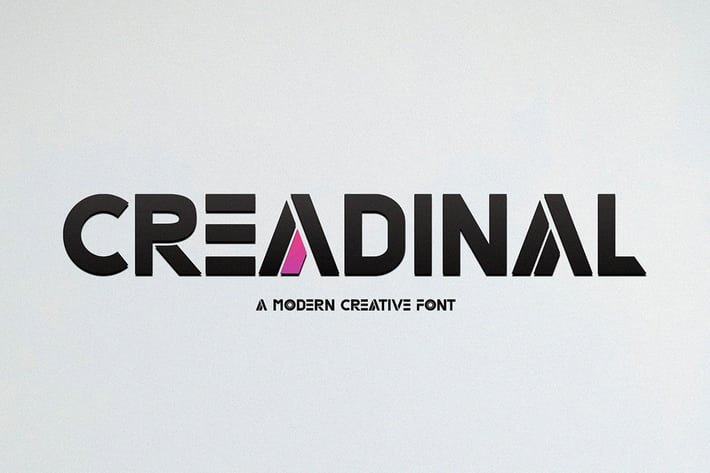
Creadinal - Modern Font
Introducing Creadinal, a modern, simple, and creative font.
So perfect for you who needs a typeface for logo designs, magazine, social media, brochure, and many more.